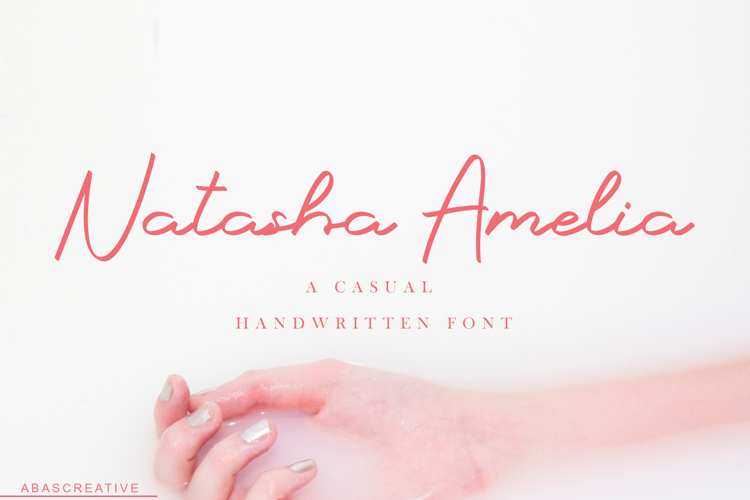
Natasha Amelia Font
About Natasha Amelia Font
Natasha Amelia is a beautiful calligraphy font, with a unique soft and delicate feeling. It will add a romantic touch to any design project.